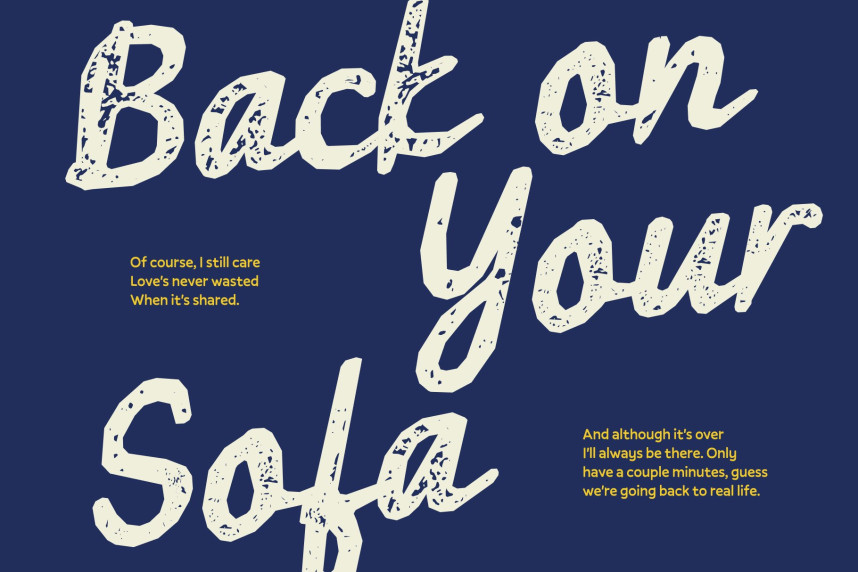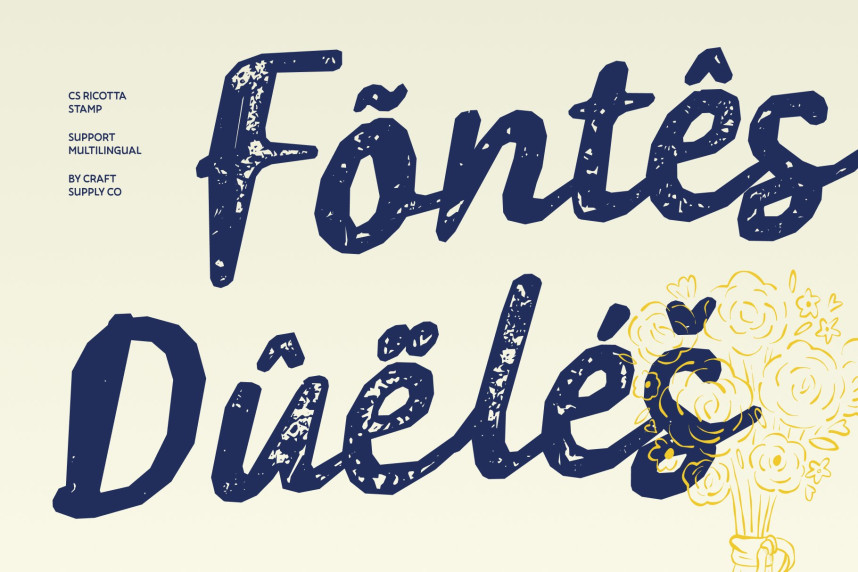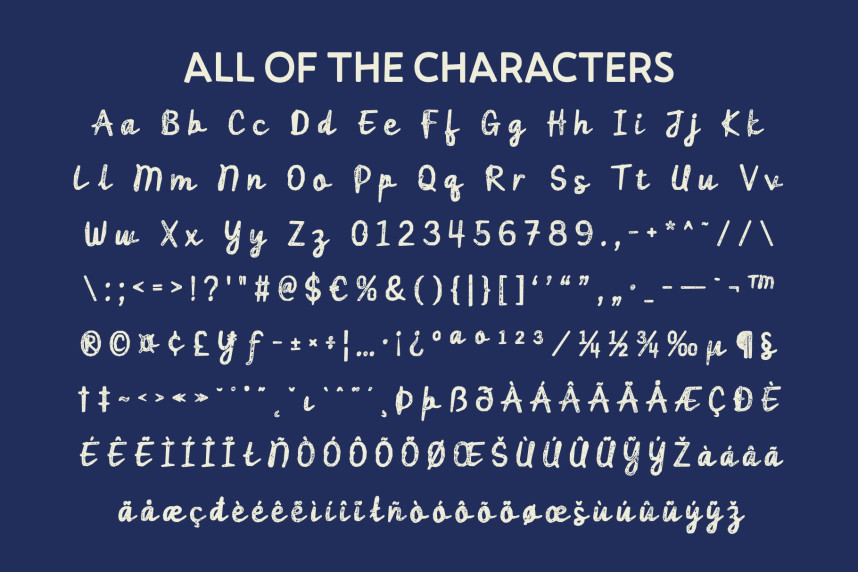
CS Ricotta Stamp Font
CS Ricotta Stamp Font – Hand-Drawn Script Font: Where Romantic Elegance Meets Vintage Stamp Texture
Sweet, Romantic Letterforms with Handcrafted Charm
This is a hand-drawn script font that radiates charm and sophistication through its flowing strokes and graceful handwritten style. Its sweet, romantic character brings warmth, intimacy, and authenticity to every composition, creating typography that feels personal, elegant, and effortlessly inviting. Every letter is crafted to evoke the beauty of natural handwriting with refined artistic flair.